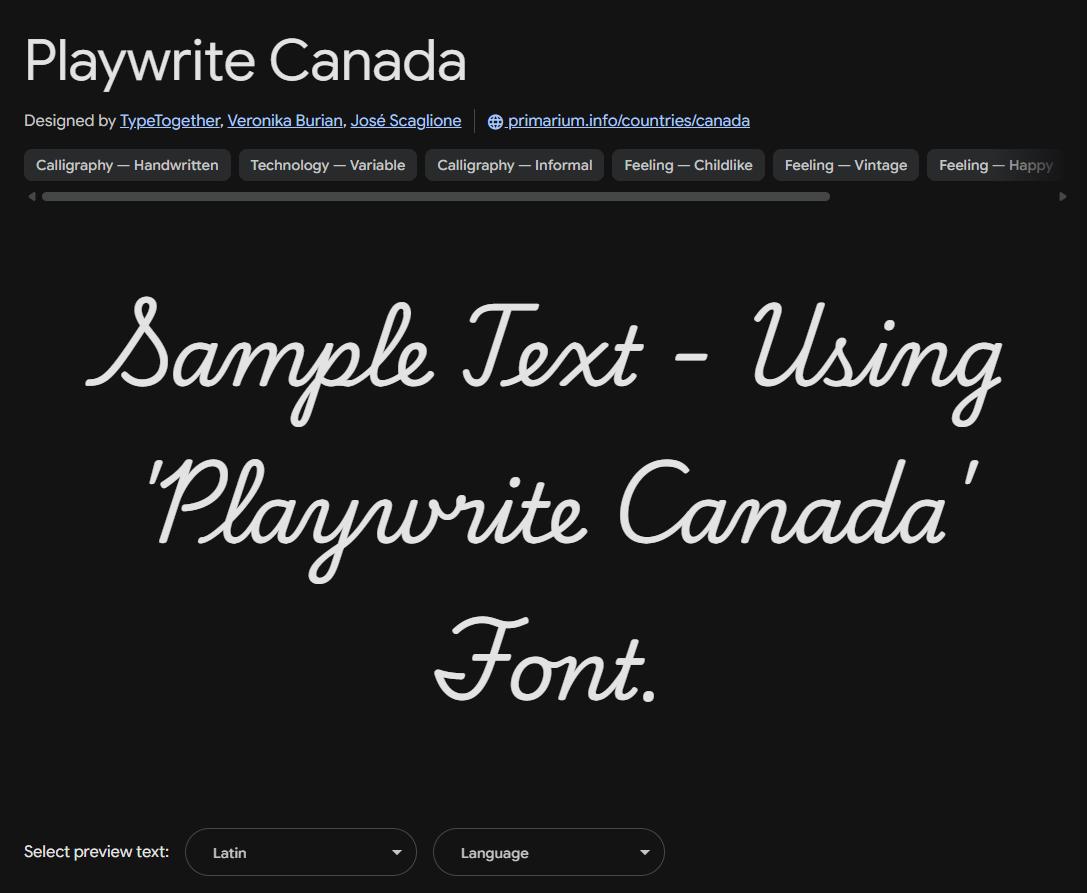
Engineered to bridge the gap between traditional pedagogical standards and modern digital versatility, Playwrite Canada represents a sophisticated variable font solution developed by TypeTogether under the expert direction of Veronika Burian and José Scaglione. This single-axis typeface optimizes the transition from manual script acquisition to screen-based legibility, utilizing fluid stroke modulation and precise kerning pairs to reflect the specific regional handwriting requirements of the Canadian educational landscape. By integrating advanced OpenType features and a weight-based interpolation axis, the foundry delivers a semantically rich typographic system that preserves the authenticity of continuous-line cursive while providing the technical flexibility required for cross-platform accessibility and responsive interface design.
The Playwrite Canada font family represents a sophisticated intersection of pedagogical intent and modern variable technology, meticulously engineered to mirror regional educational standards through an informal calligraphic framework. As a high-functioning variable typeface, it leverages a continuous design axis to maintain structural integrity across weights, capturing a rugged, hand-drawn texture that feels both authentically vintage and perpetually happy. This handwritten series transcends traditional script limitations by blending playful, childlike letterforms with precise digital kerning, evoking a sense of nostalgic warmth while remaining semantically optimized for contemporary screen rendering. By synthesizing the spontaneity of human ductus with advanced OpenType features, Playwrite Canada provides a versatile typographic solution that bridges the gap between historical penmanship and the fluid demands of modern instructional design.
While the Playwrite Canada variable font family by TypeTogether represents a sophisticated digital translation of regional educational handwriting standards, it remains fundamentally ill-suited for high-density transactional environments or safety-critical user interfaces where immediate legibility and rapid saccadic processing are non-negotiable. The intricate cursive joins and rhythmic stroke modulation inherent to this school-hand model-while technologically advanced through its variable axis integration-introduce significant visual noise that can impede character recognition in low-vision scenarios or high-speed signage contexts. Consequently, this typeface should be avoided in legal documentation, pharmaceutical labeling, or cockpit instrumentation, as its emphasis on authentic penmanship over the rigid glyph uniformity and high x-height found in neo-grotesque interfaces creates a cognitive load that conflicts with the accessibility mandates of modern digital accessibility standards (WCAG) and sub-pixel rendering efficiency.
Playwrite Canada is ideally suited for educational materials, personal correspondence, and creative projects that require an authentic, handwritten aesthetic. Its design follows the Primary Cursive methodology, utilizing specific joiner logic to mimic authentic pen-to-paper flow while maintaining a 0-degree slant for maximum clarity.
While highly expressive, Playwrite Canada is generally less effective for dense blocks of body text where traditional serif or sans-serif typefaces offer better reading stamina. The high frequency of variable ligatures and complex exit strokes can increase cognitive load during rapid saccadic eye movements compared to standardized modular typefaces.
To balance its fluid and script-like nature, this typeface pairs most effectively with clean, geometric sans-serifs like Montserrat or Roboto. Establishing a strong typographic contrast involves pairing the script's organic rhythm with a low-stroke-contrast grotesque to ensure clear information architecture through distinct x-height variations.
It functions well as a decorative or accent font in UI design, particularly for onboarding screens or personalized user experiences. Optimized hinting in the Google Fonts API ensures that the intricate glyph outlines maintain their integrity across various pixel densities and subpixel rendering environments.
In high-resolution print environments, the font displays exceptional detail, capturing the nuances of the cursive connections and stroke variations perfectly. The vector paths are meticulously plotted to prevent "ink bleed" simulations, ensuring that the PostScript outlines remain crisp even at high LPI (lines per inch) settings.
Playwrite Canada is part of a larger collection that typically focuses on a single, consistent weight to mirror the pressure of a standard writing instrument. The absence of multiple weight classes in the variable font axis means designers must rely on scale and color contrast to establish hierarchy rather than traditional bold or light weights.
This typeface is an excellent choice for boutique brands, artisanal products, or educational services looking to convey warmth and human touch. Its unique Unicode mapping and adherence to regional educational standards provide a distinct pedagogical authority that standard commercial scripts often lack.
For digital screens, it is recommended to keep Playwrite Canada at or above 18px to ensure that the delicate connection points remain visible. Because the thin joiners are prone to aliasing at low resolutions, maintaining a sufficient point size is critical to preserve the mathematical continuity of the glyph-to-glyph transitions.
The font is designed with automated contextual alternates that handle the connections between characters, reducing the need for manual kerning in most applications. The underlying GPOS (Glyph Positioning) table specifically manages the anchor points to ensure that the cursive entry and exit strokes align seamlessly regardless of the character pair.
Playwrite Canada excels in large-scale applications where its unique handwritten characteristics and fluid motion can be fully appreciated as a focal point. At display sizes, the high-fidelity Bézier curves reveal the sophisticated geometry of the Canada-specific cursive school, making it a powerful tool for large-format environmental graphics.